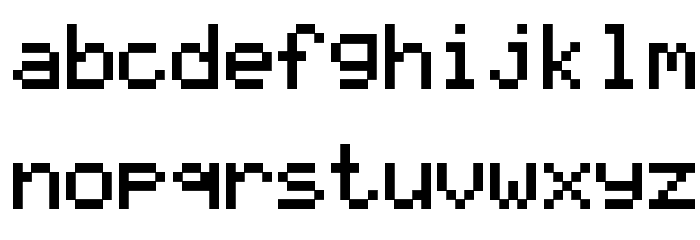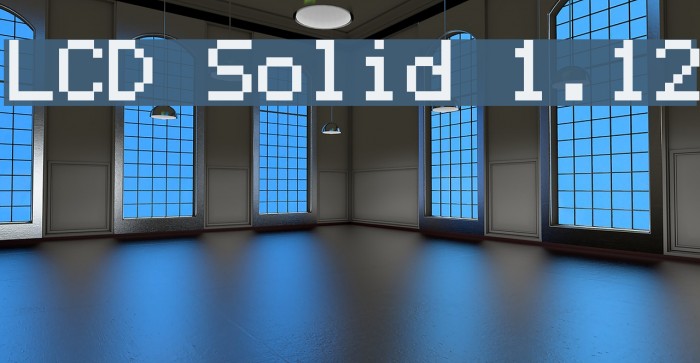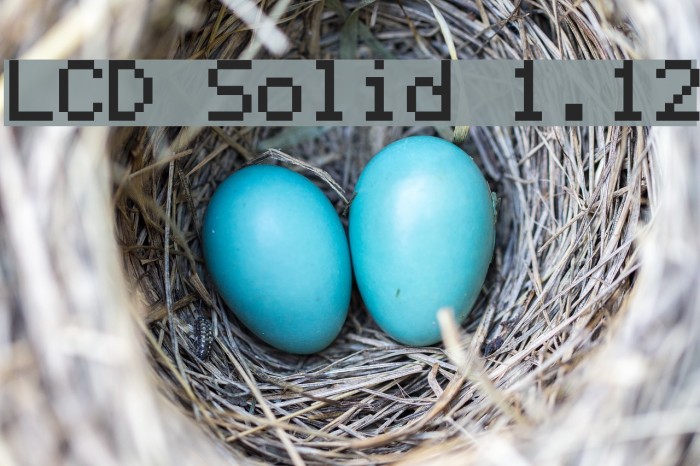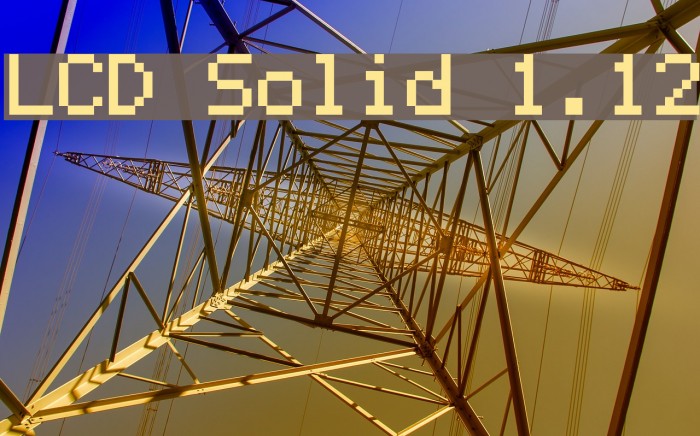
LCD Solid 1.12 Font
This font features a pixelated, blocky design reminiscent of classic digital displays and early computer screens. Each character is composed of square, uniform pixels, creating a retro, digital aesthetic. The uppercase and lowercase letters maintain a consistent height and width, contributing to a monospaced appearance. The numbers and special characters follow the same pixelated style, ensuring uniformity across all glyphs. This font evokes a sense of nostalgia and is ideal for projects that aim to capture the essence of vintage technology or gaming.
A pixelated, monospaced font with a retro digital display style.
- Proposed Projects: Ideal for retro video games, digital art projects, tech-themed designs, and any creative work that seeks to emulate vintage computer aesthetics.
- Overall Style: Vintage
- Use Case: Logos, Headlines, Digital displays